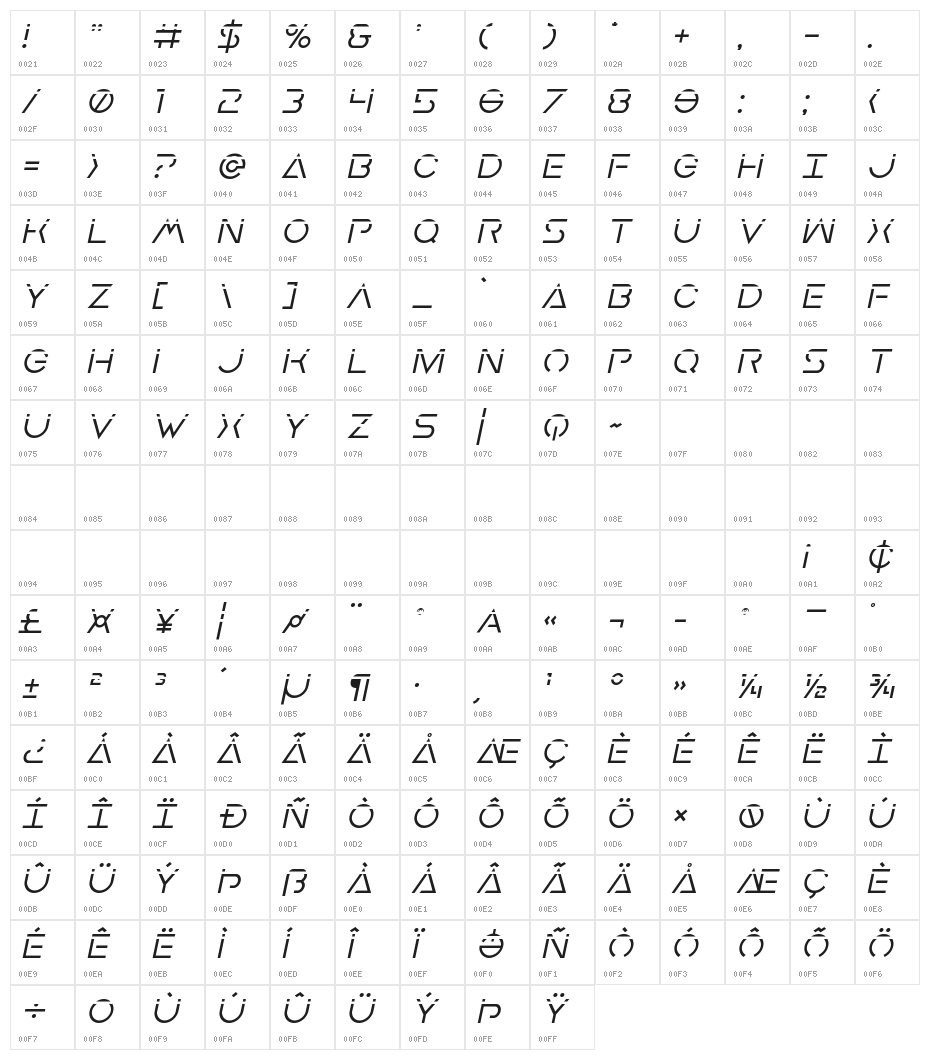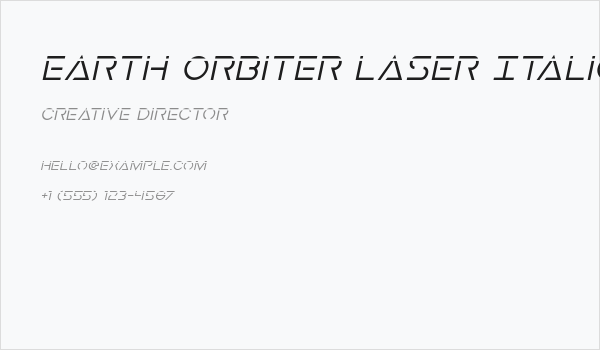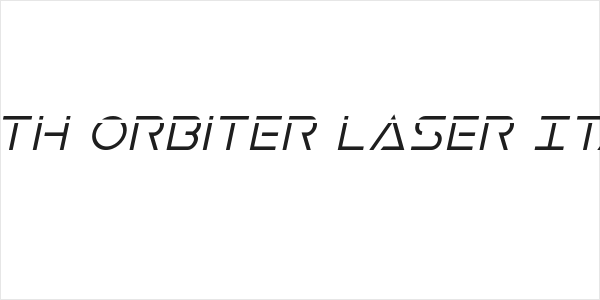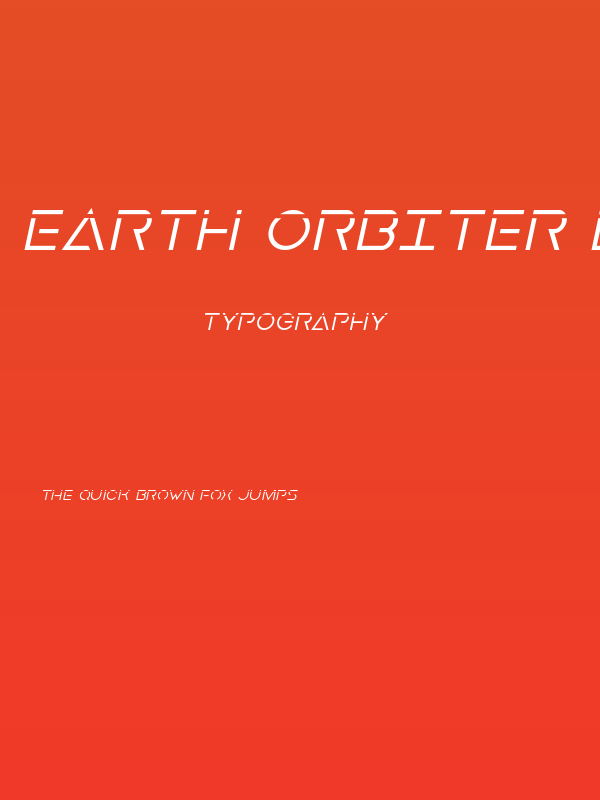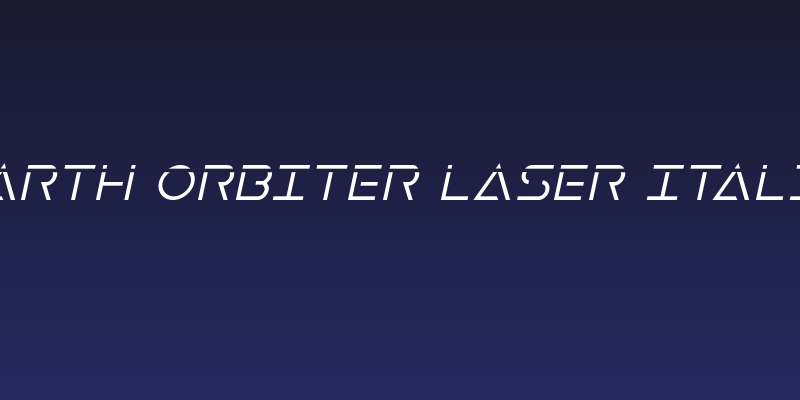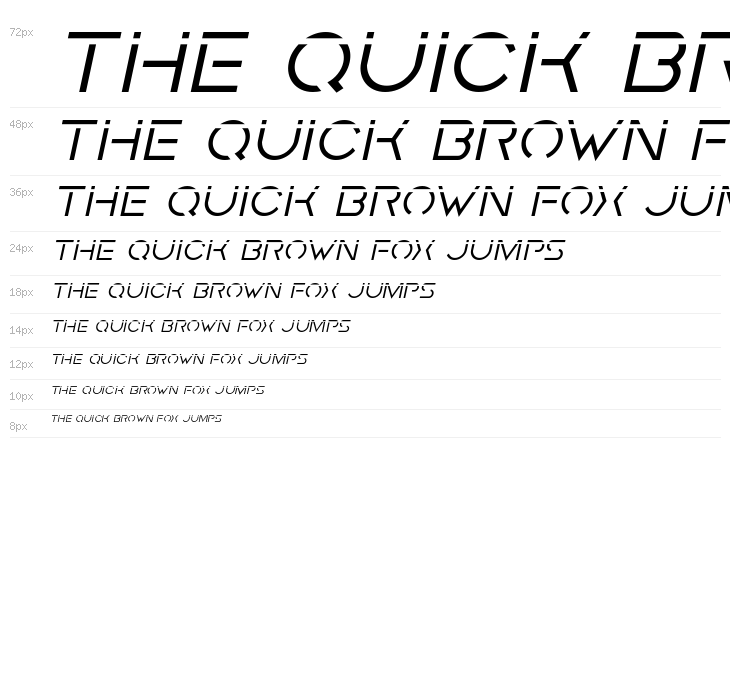
Earth Orbiter Laser Italic Font
Earth Orbiter Laser Italic Description
This font features a futuristic and dynamic design, characterized by its italicized and angular letterforms. The strokes are sleek and sharp, with a consistent slant that gives a sense of motion and speed. The geometric shapes are clean and precise, creating a modern and technological appearance. The font includes both uppercase and lowercase letters, numerals, and a variety of special characters, all maintaining the same stylistic elements. The overall aesthetic is reminiscent of sci-fi themes, making it suitable for projects that require a cutting-edge and innovative look.
| Proposed Projects | Ideal for technology branding, sci-fi movie posters, video game titles, and futuristic-themed designs. |